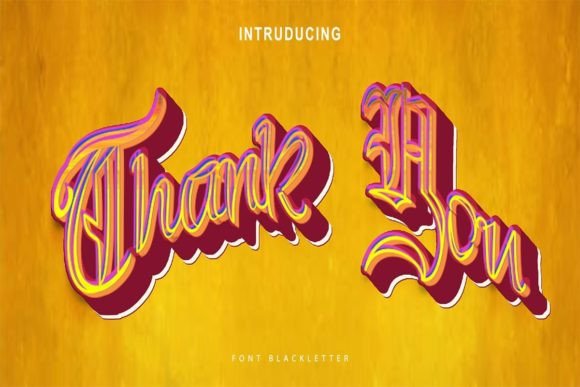
The Dramatic Charm of Blackletter Fonts
I still remember the design project that made me fall in love with Blackletter fonts. I was working on a Gothic-inspired branding campaign for a client who wanted to evoke a sense of mystery and drama. As I scrolled through font libraries, I stumbled upon a bold, ornate script that seemed to leap off the page – a Blackletter font. It was love at first sight! ✨ The intricate details, the sense of history, and the sheer drama of the font won me over, and it’s been a staple in my design toolkit ever since.
An Honest Review of Blackletter Fonts
- 💥 Dramatic impact: Blackletter fonts add a touch of Gothic grandeur to any design.
- ✅ Versatility: From elegant invitations to bold logos, Blackletter fonts can adapt to various design needs.
- 🔍 Intricate details: The ornate features and flourishes make Blackletter fonts a joy to explore.
While Blackletter fonts are incredibly versatile, there are a few things to keep in mind: 🤔
- ⚠️ Legibility: Some Blackletter fonts can be quite ornate, making them harder to read at small sizes.
- ⚠️ Overuse: Too much Blackletter can feel overwhelming or even clichéd.
A Practical Guide to Using Blackletter Fonts
The Backstory of Blackletter Fonts
Blackletter fonts have a rich history, dating back to the Middle Ages. The style emerged in Europe during the 12th century, characterized by intricate, interconnected letters. 📜 Over time, Blackletter fonts evolved and spread throughout the continent, influencing art, literature, and design. Today, Blackletter fonts continue to inspire designers and artists around the world.
Q: What is the difference between Blackletter and Gothic fonts?
A: While both Blackletter and Gothic fonts share similar characteristics, Blackletter fonts tend to be more ornate and intricate, with a focus on decorative details. Gothic fonts, on the other hand, are often simpler and more straightforward.
Q: Can I use Blackletter fonts for body text?
A: While Blackletter fonts can be beautiful, they may not be the best choice for body text. Due to their ornate nature, they can be harder to read at small sizes. However, they can work well for headings, titles, or decorative text.
Q: Are Blackletter fonts suitable for digital use?
A: Yes! Blackletter fonts can be used in digital designs, such as websites, social media graphics, or email newsletters. Just be mindful of legibility and font size.